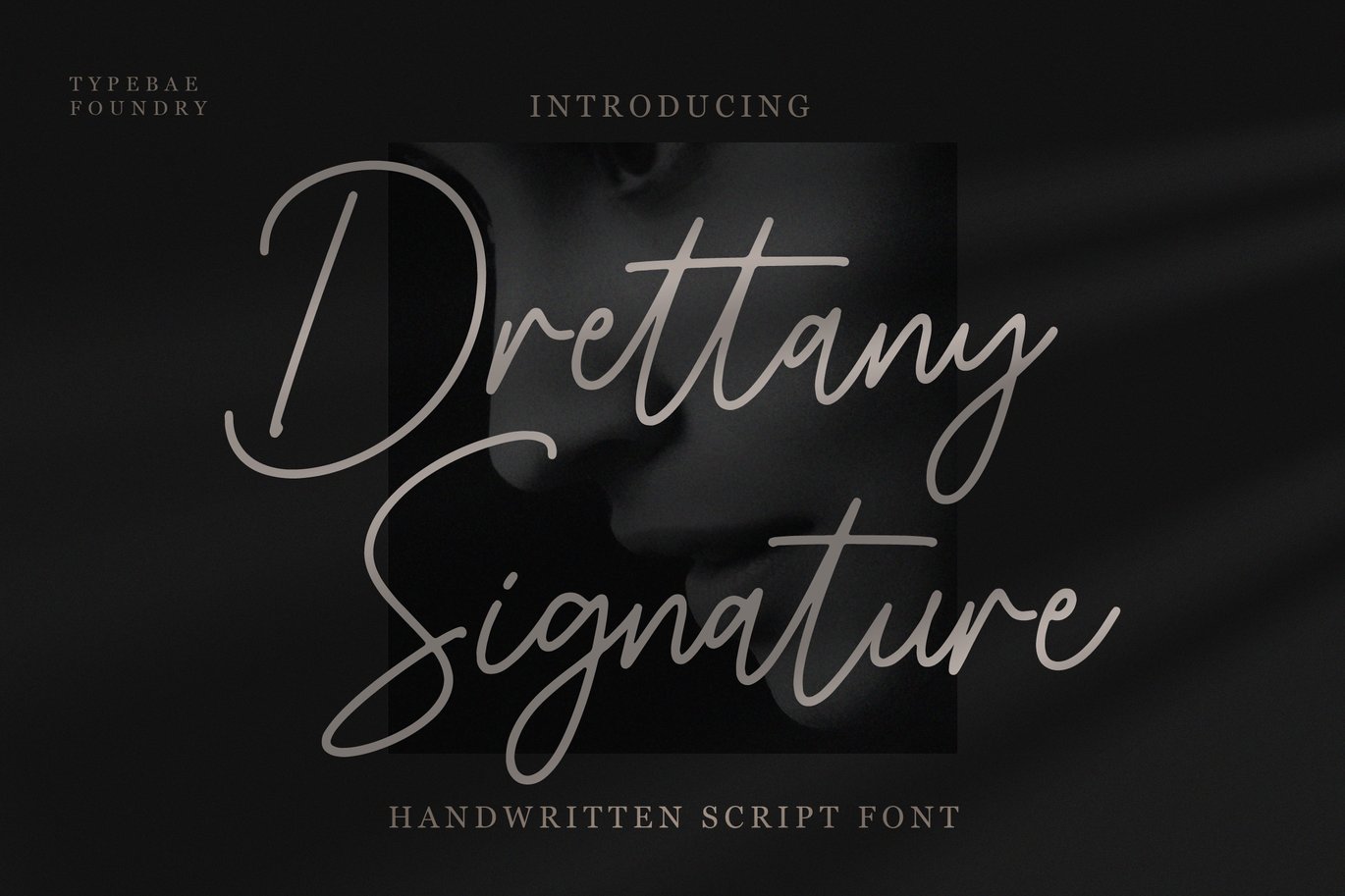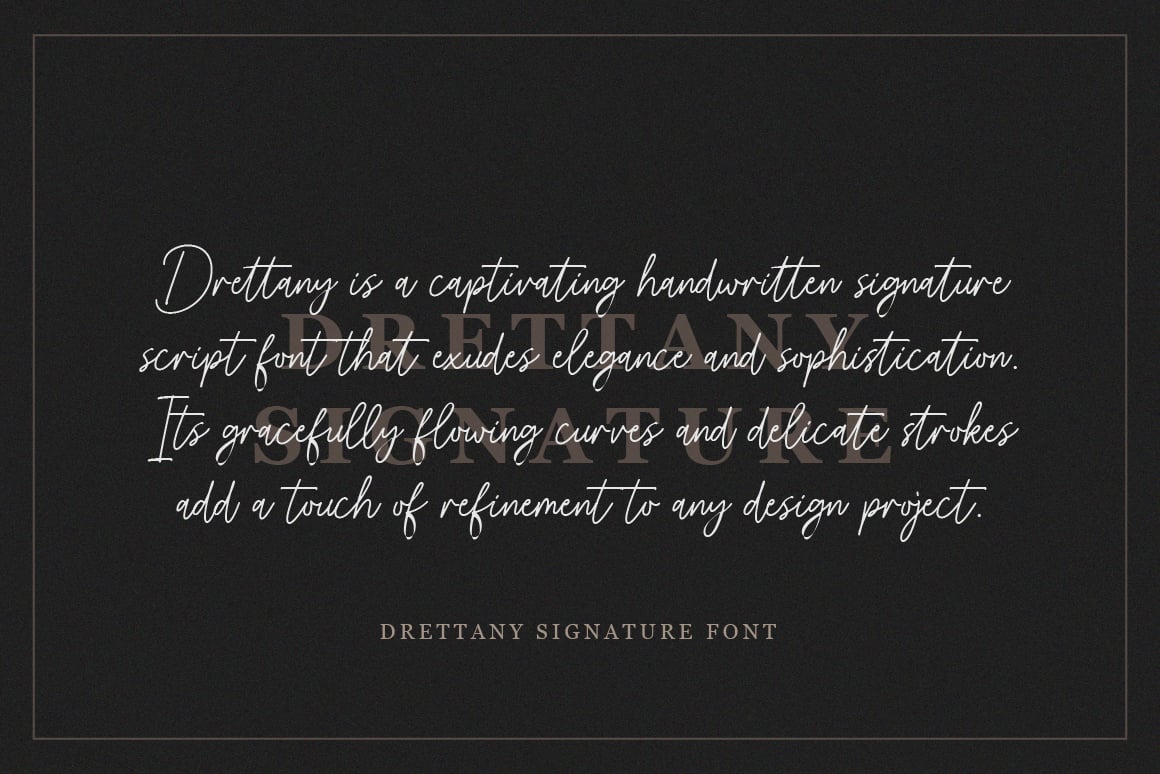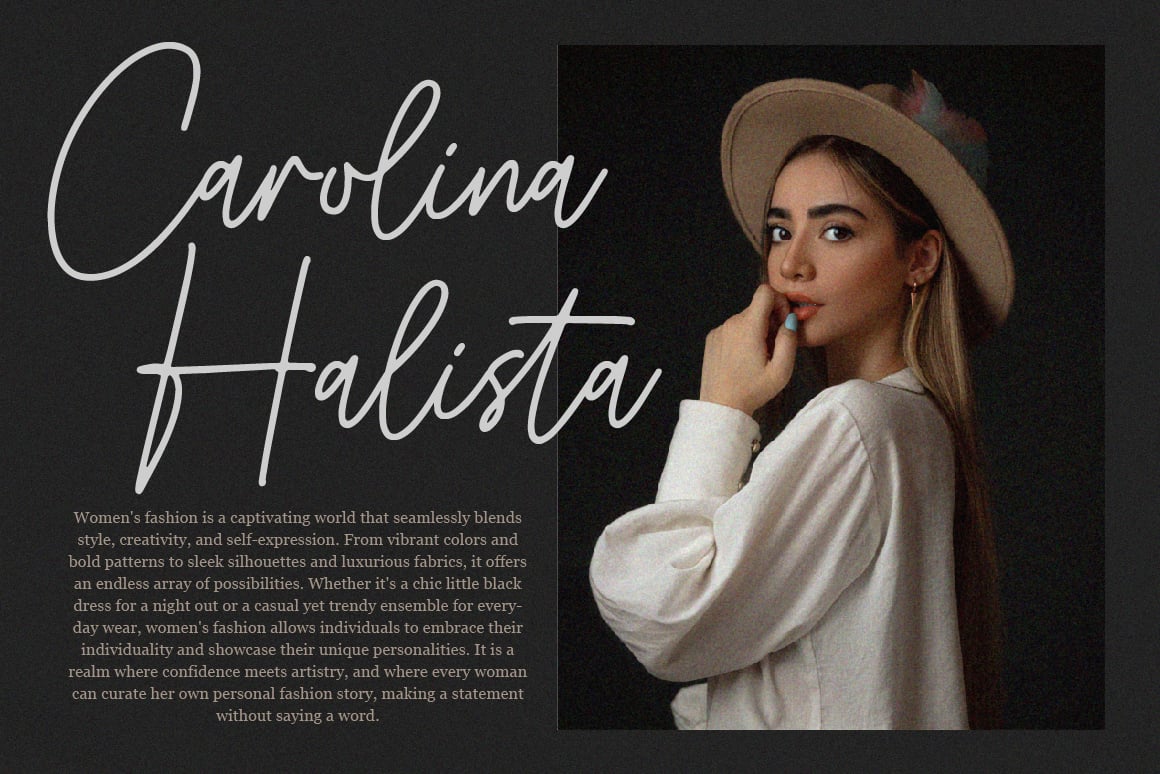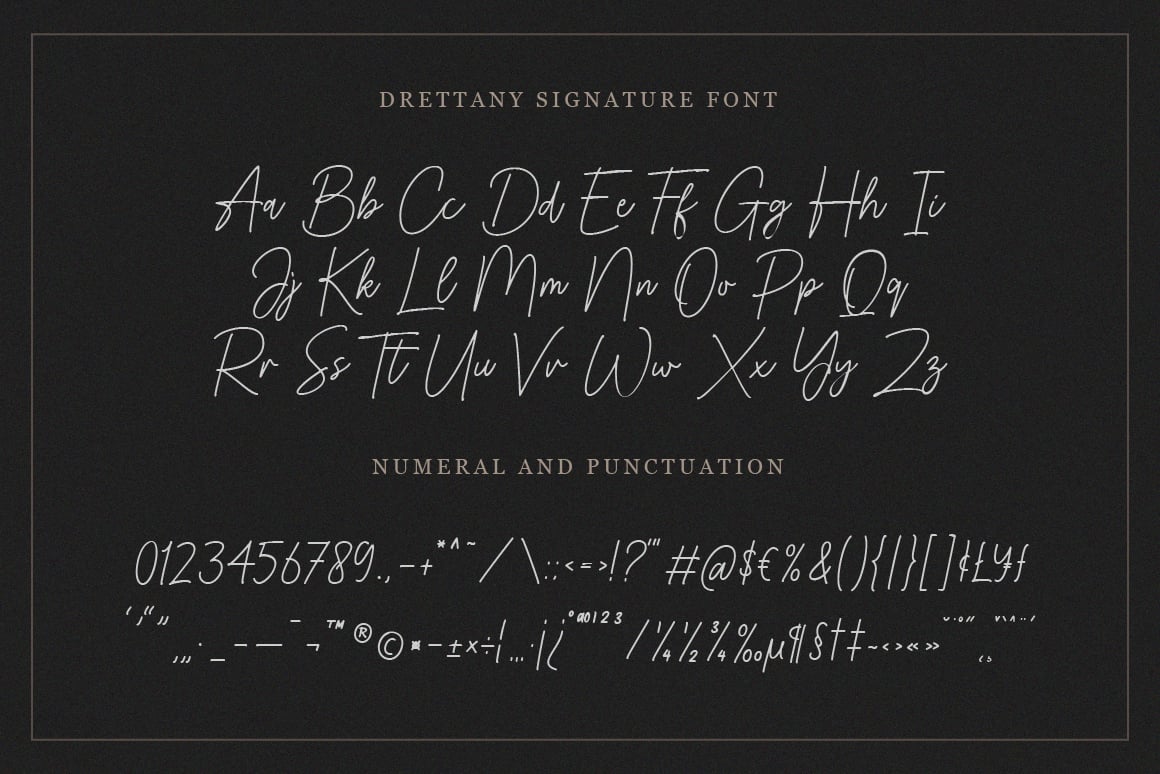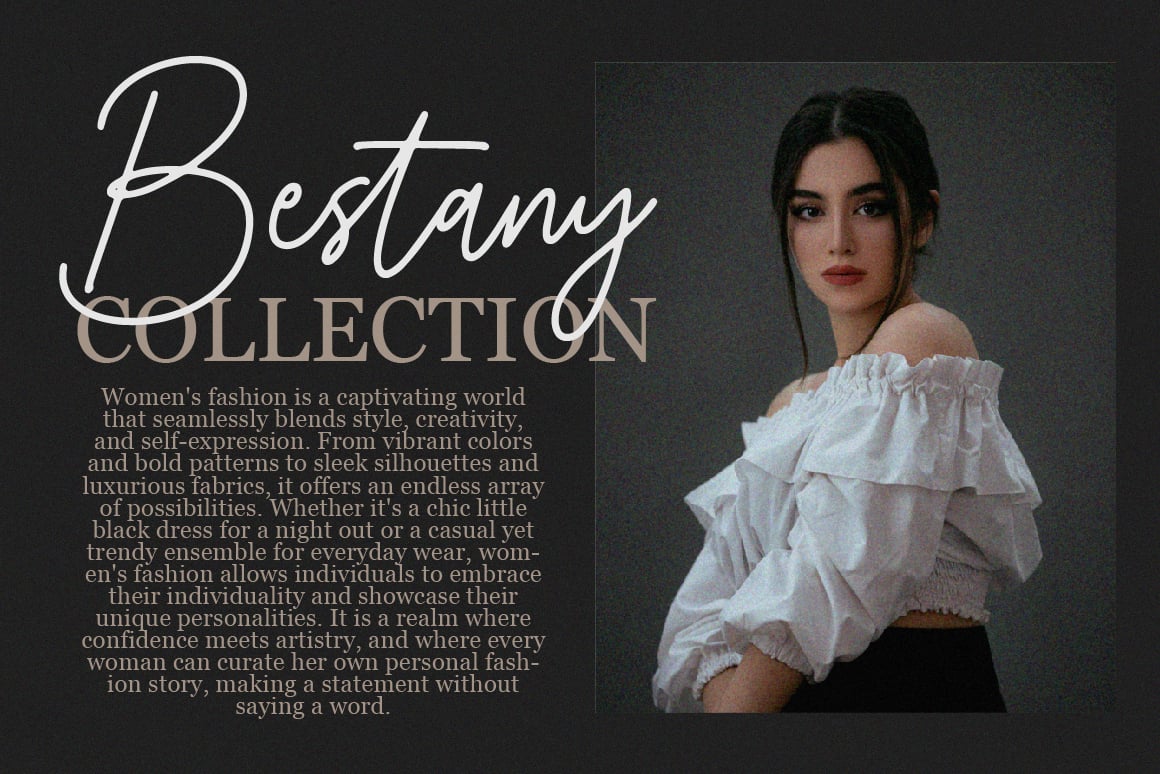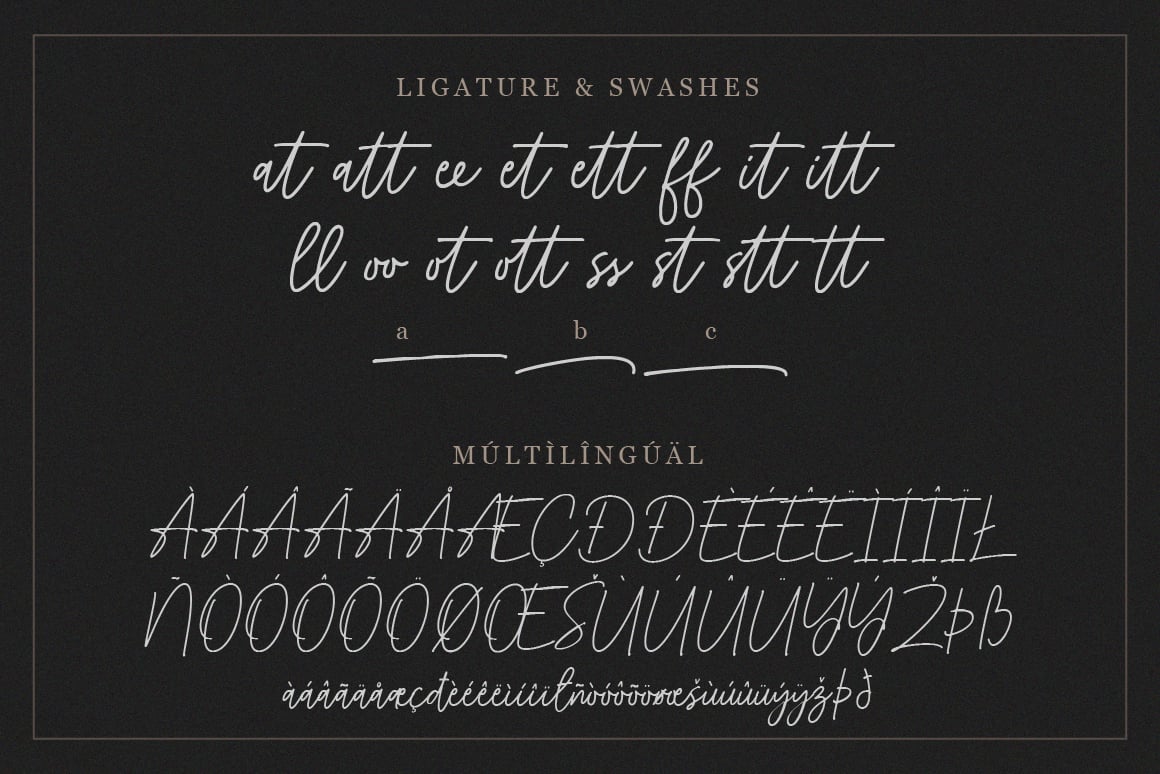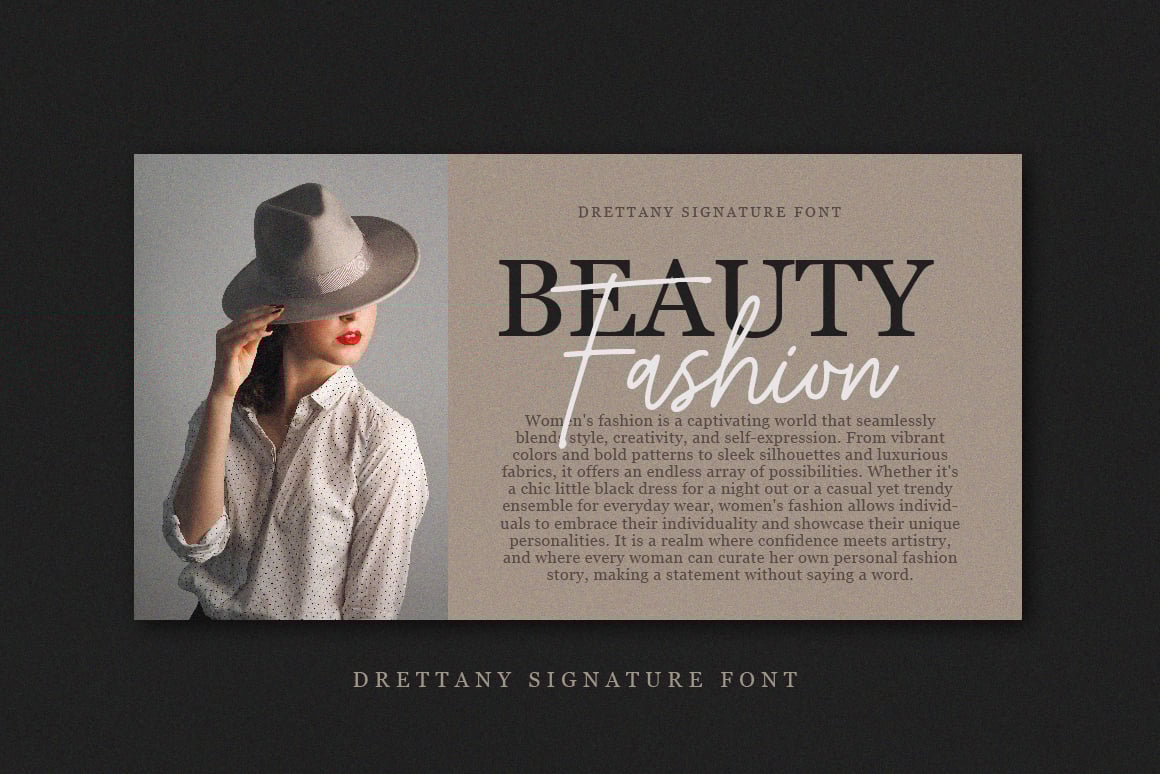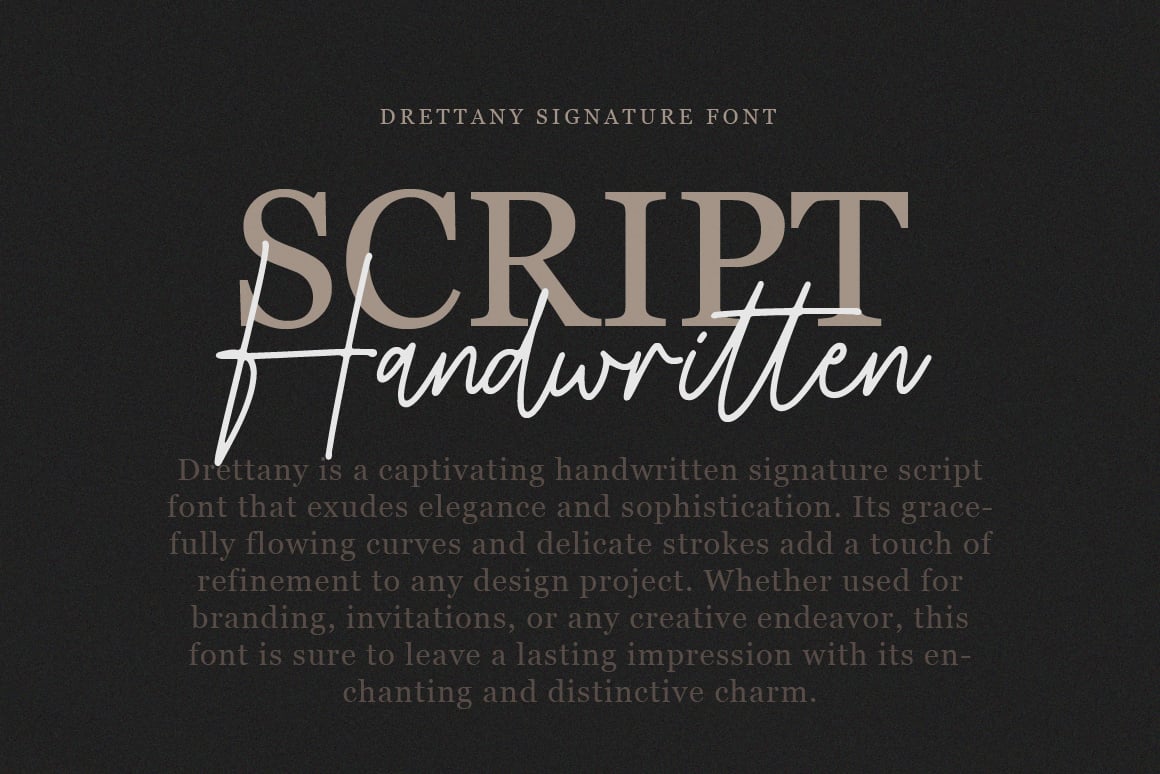
Drettany Signature Script Font
Drettany Signature Font is a captivating handwritten signature script font that exudes elegance and sophistication. Its gracefully flowing curves and delicate strokes add a touch of refinement to any design project. Whether used for branding, invitations, or any creative endeavor, this font is sure to leave a lasting impression with its enchanting and distinctive charm.
*Full alphabet and punctuation
*Ligature and swashes feature
*Multilingual Support: Afrikaans, Basque, Breton, Catalan, Danish, Dutch, English, Finnish, French, Gaelic (Irish, Scots), German, Icelandic, Indonesian, Irish, Italian, Norwegian, Portuguese, Saami (Southern), Spanish, Swahili, Swedish.